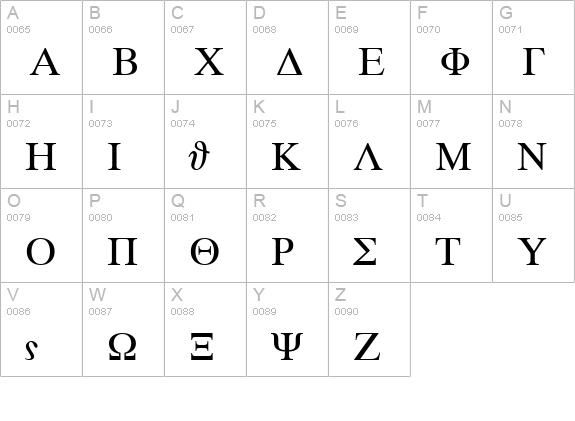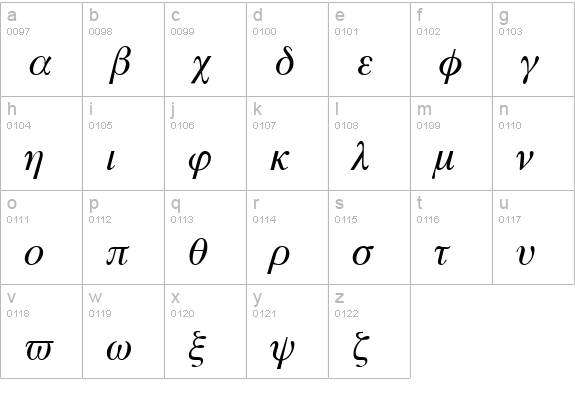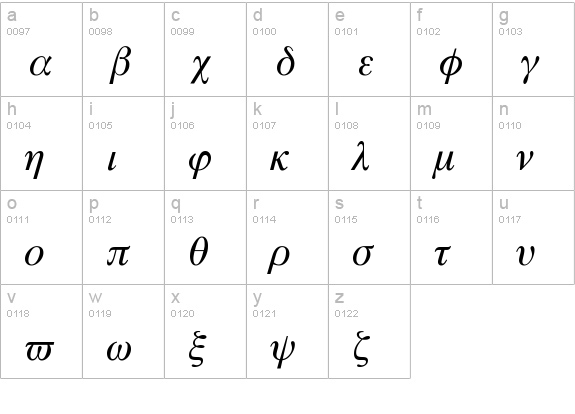
Symbols 7 Normal is the standard, neutral variant in the Symbols typeface family \xE2\x80\x94 well suited to general body text, paragraphs, and standard typographic work.
Symbols 7 Normal font is a versatile and eye-catching typeface that adds a unique touch to any design project. With its array of symbols and characters, this font is perfect for creating engaging graphics, stylish logos, and captivating social media posts. The clean lines and modern aesthetic of Symbols 7 Normal font make it suitable for a wide range of applications, from branding to web design. Best of all, Symbols 7 Normal font is available for free download at FontsMarket.com. This means you can access this fantastic font without any cost, making it a valuable addition to your design toolkit. Whether you're a seasoned designer or just starting out, Symbols 7 Normal font is sure to elevate your projects and help you stand out from the crowd. Download it today and unleash your creativity with this amazing font!